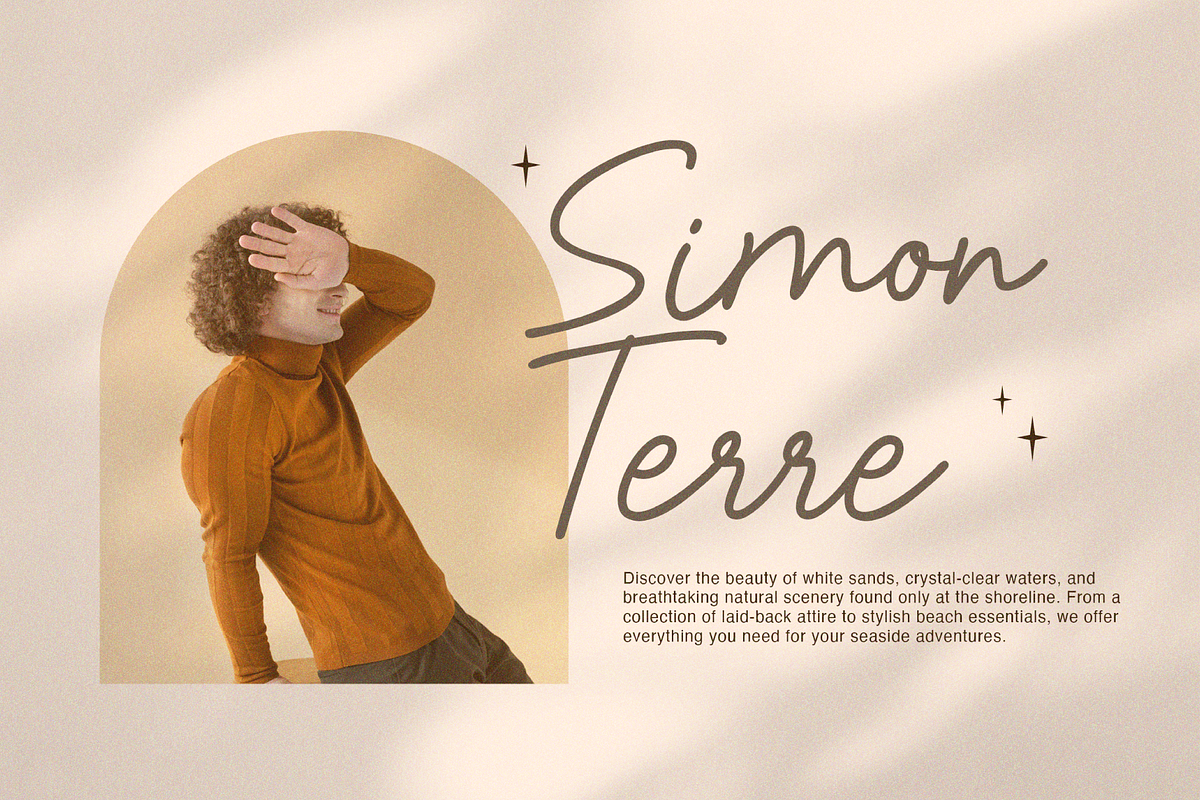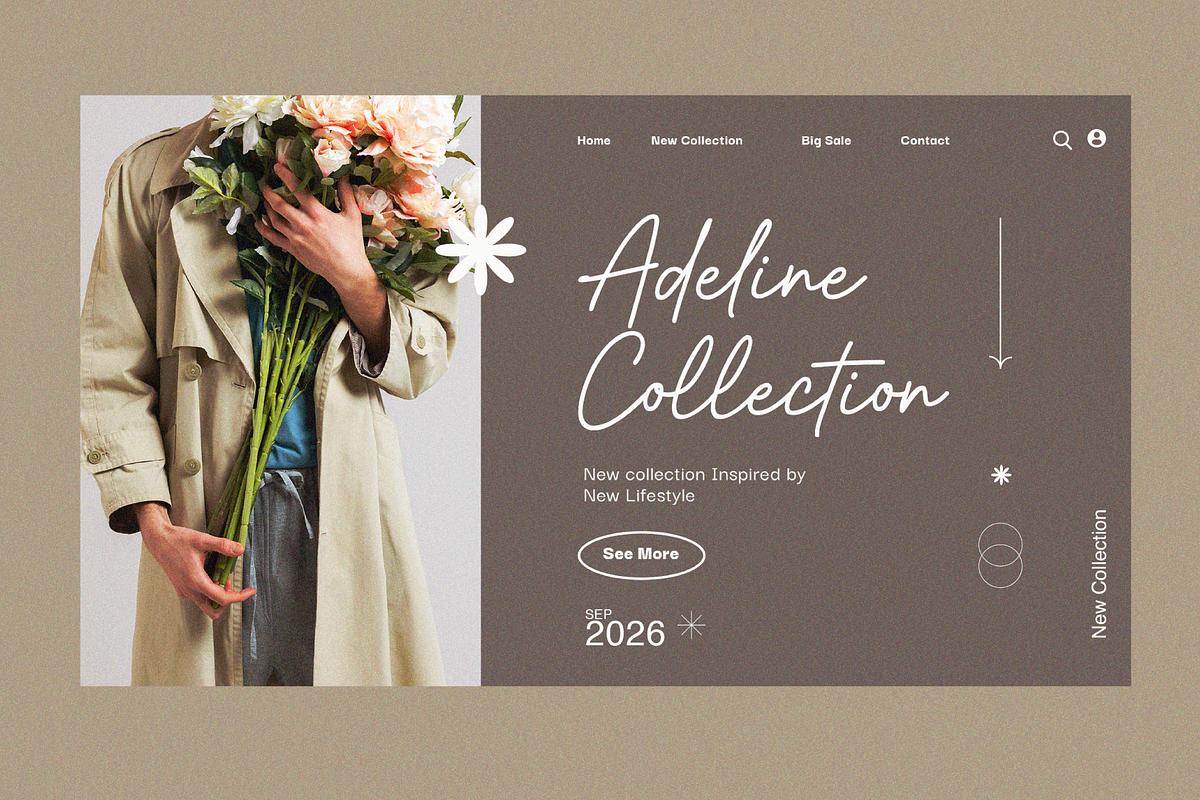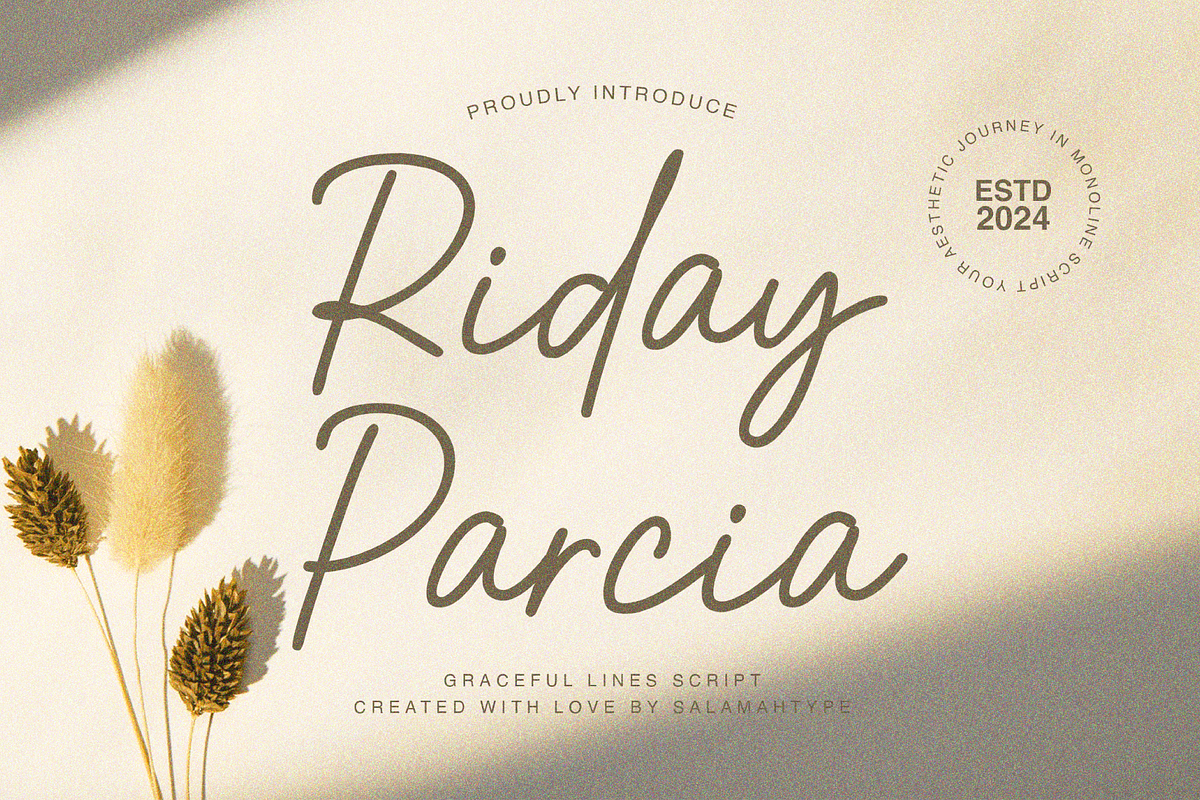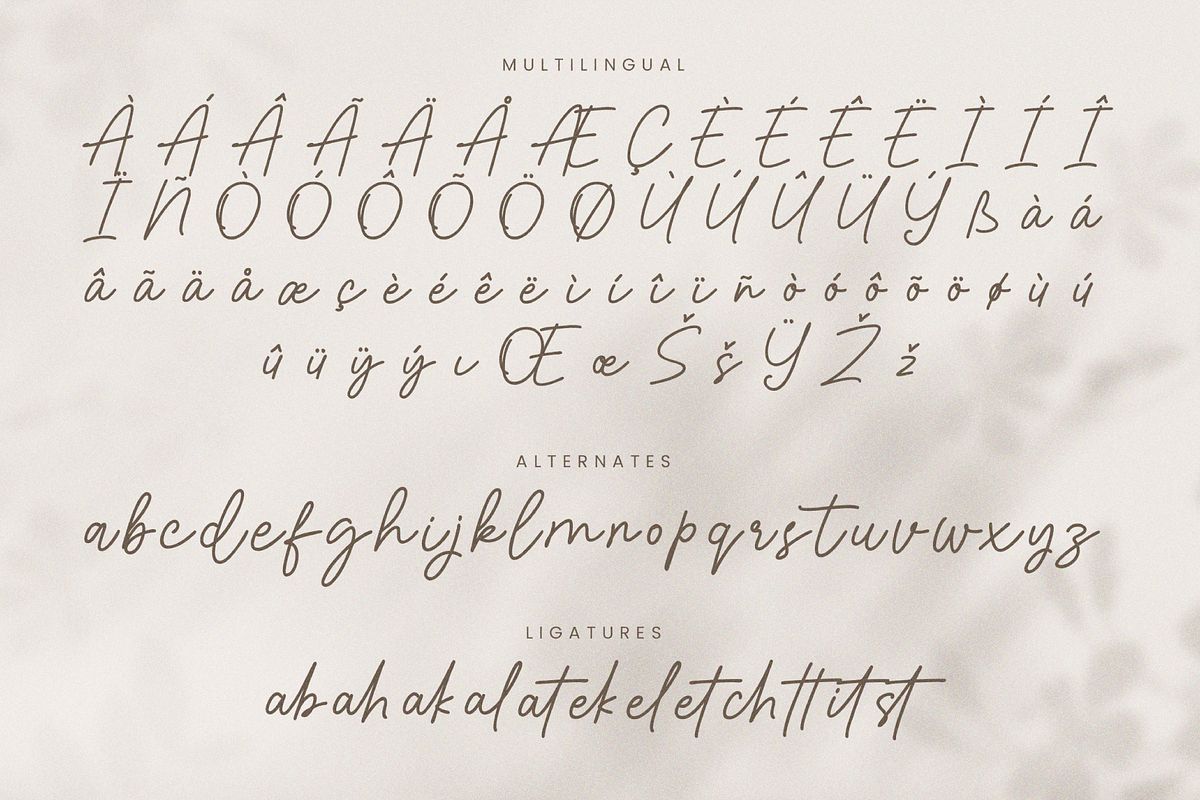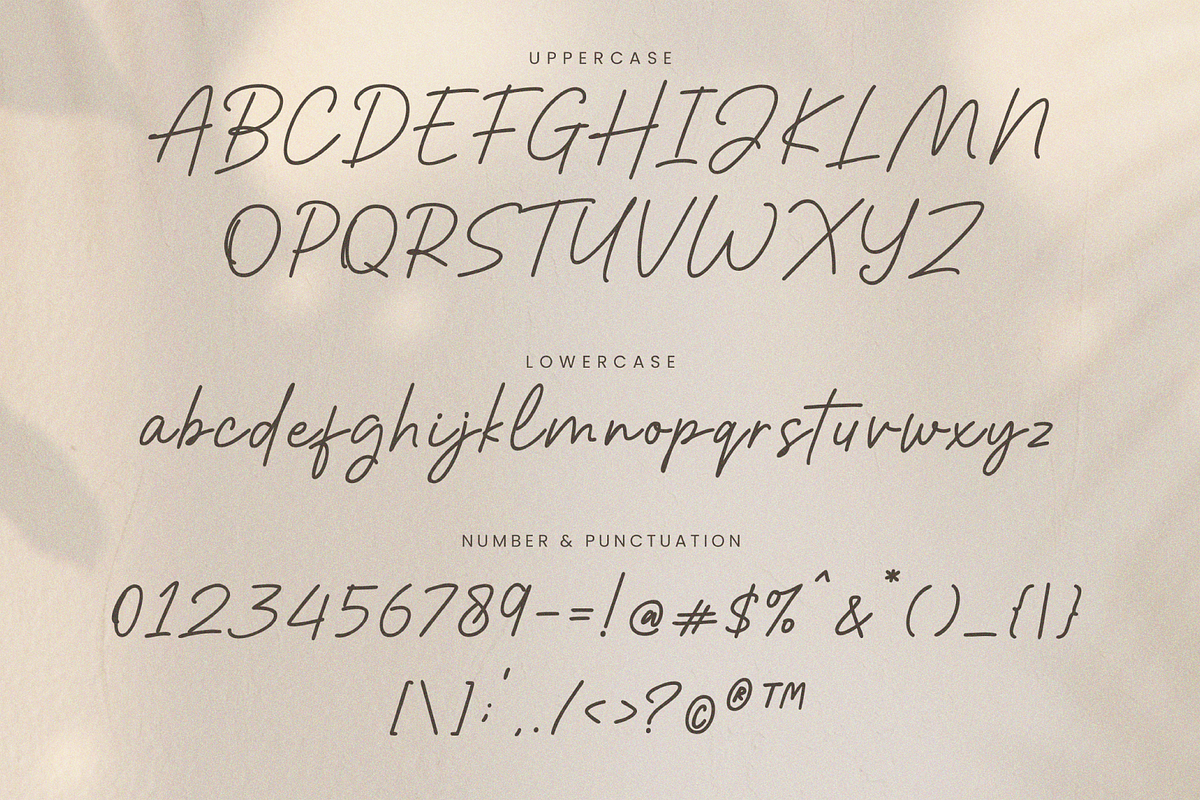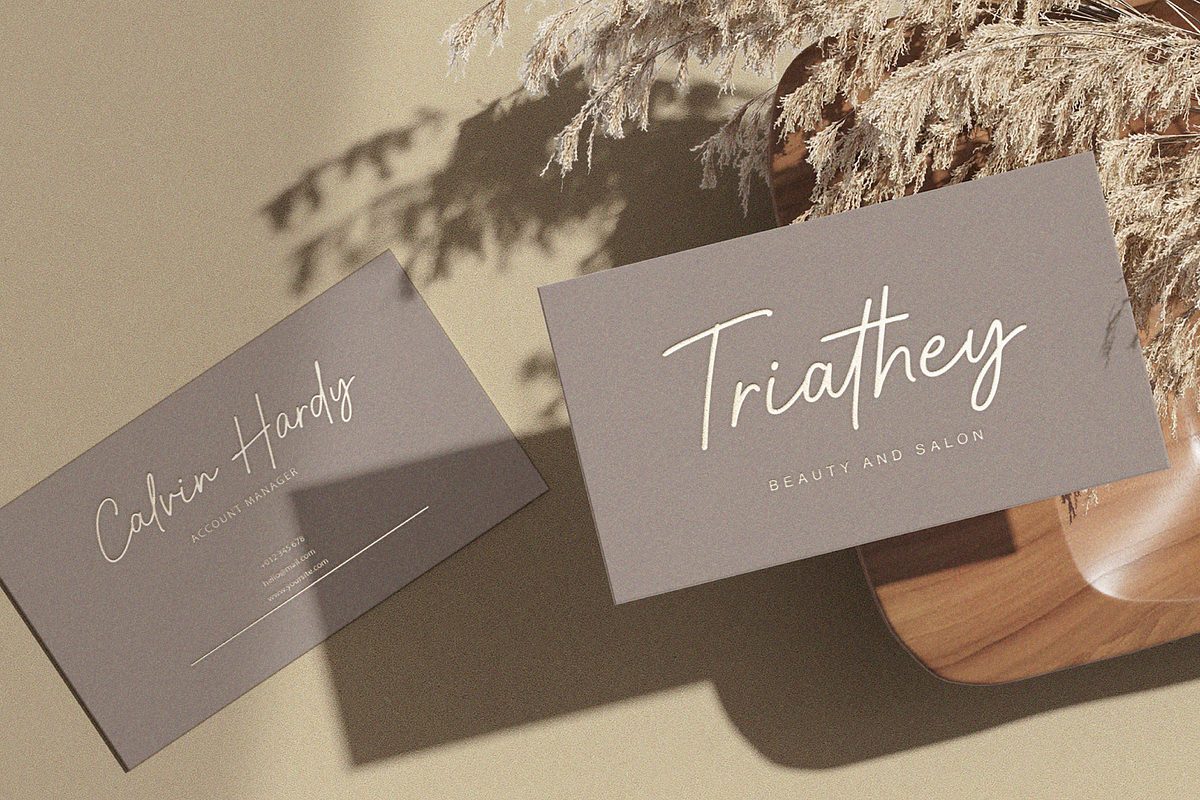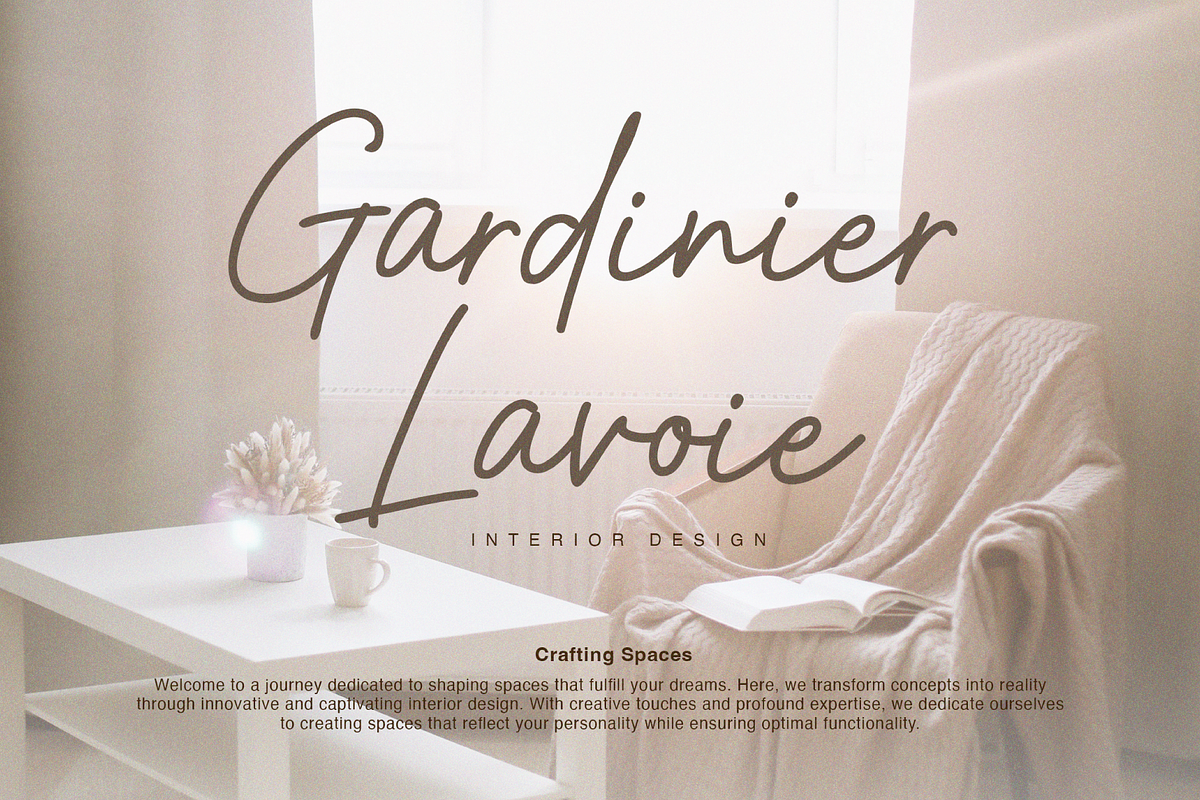
Riday Parcia Signature
A beautiful monoline script font suitable for design projects such as logos, social media, advertising, product packaging, product design, labels, photography, watermarks, invitations, stationery and more.
- Uppercase and lowercase letters